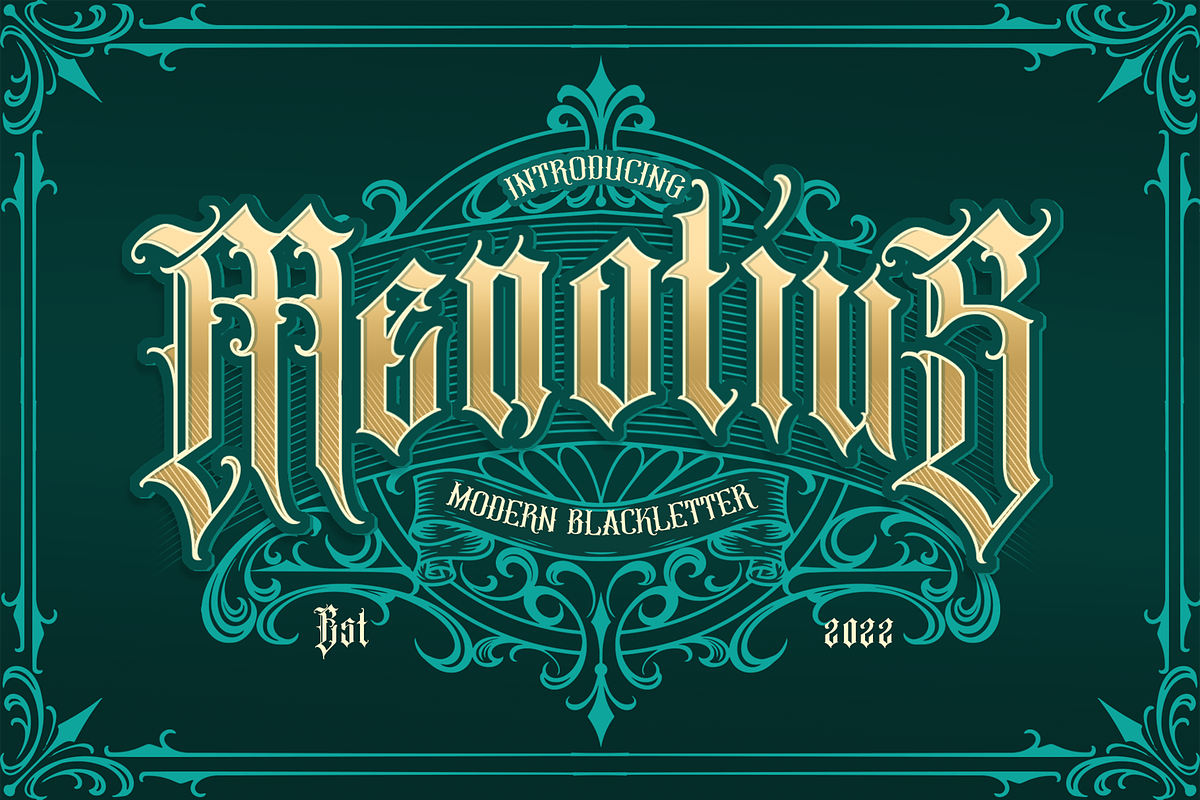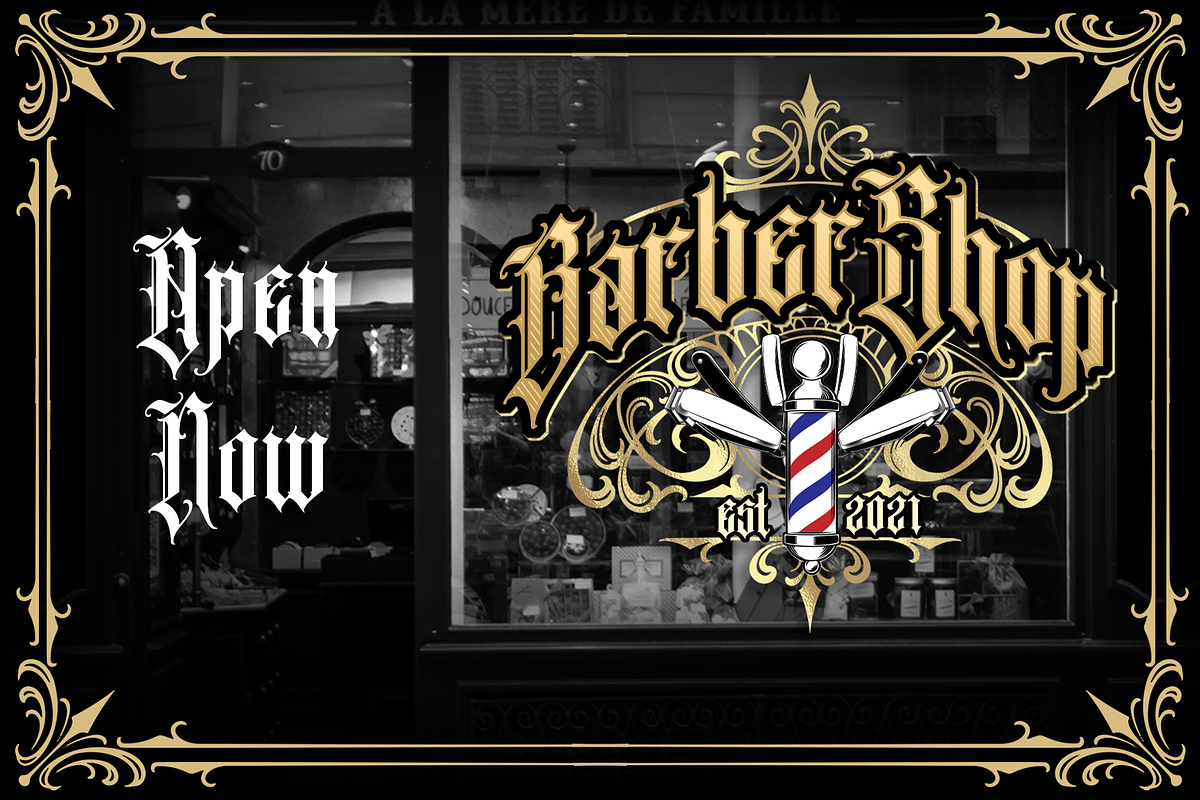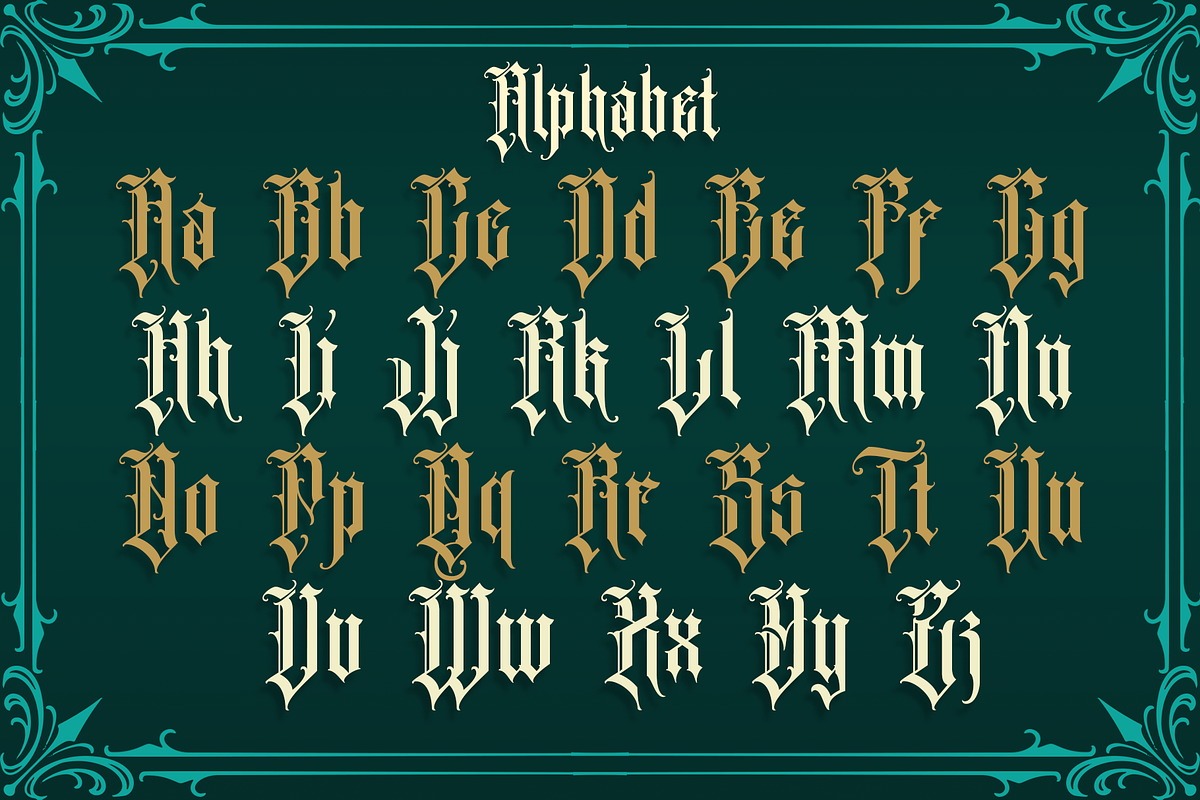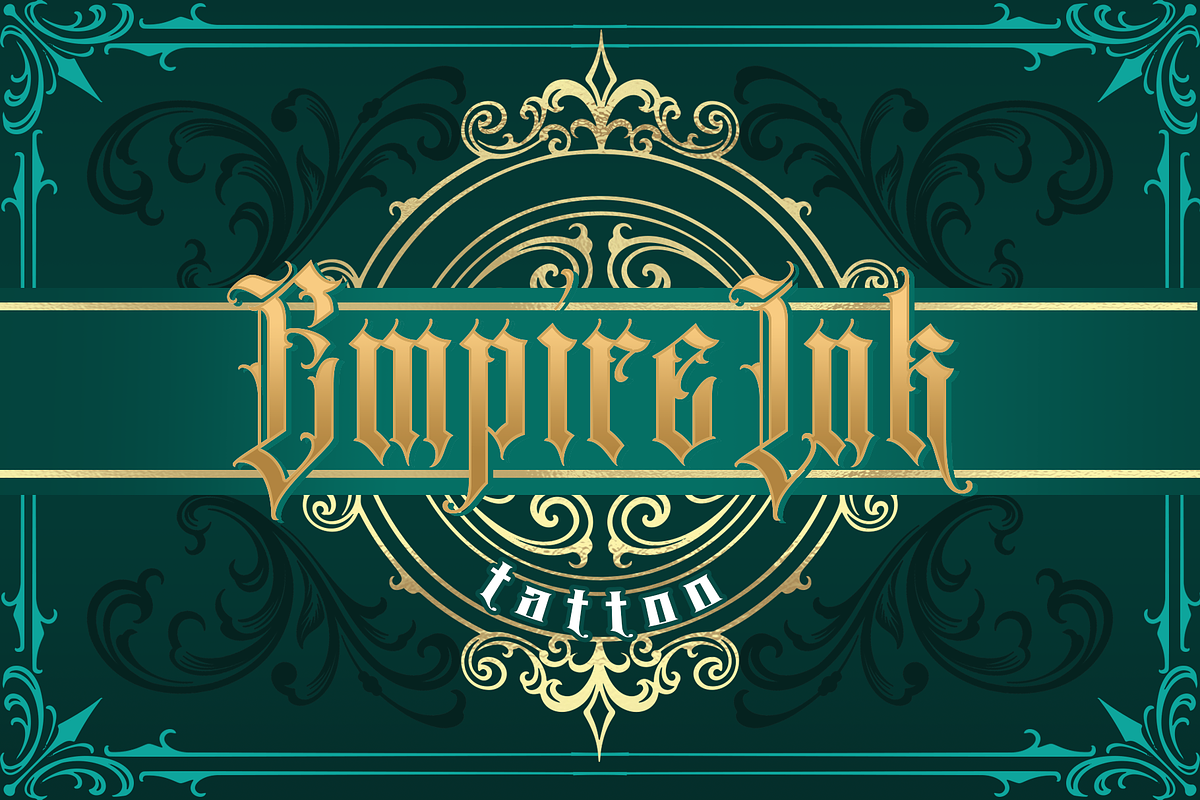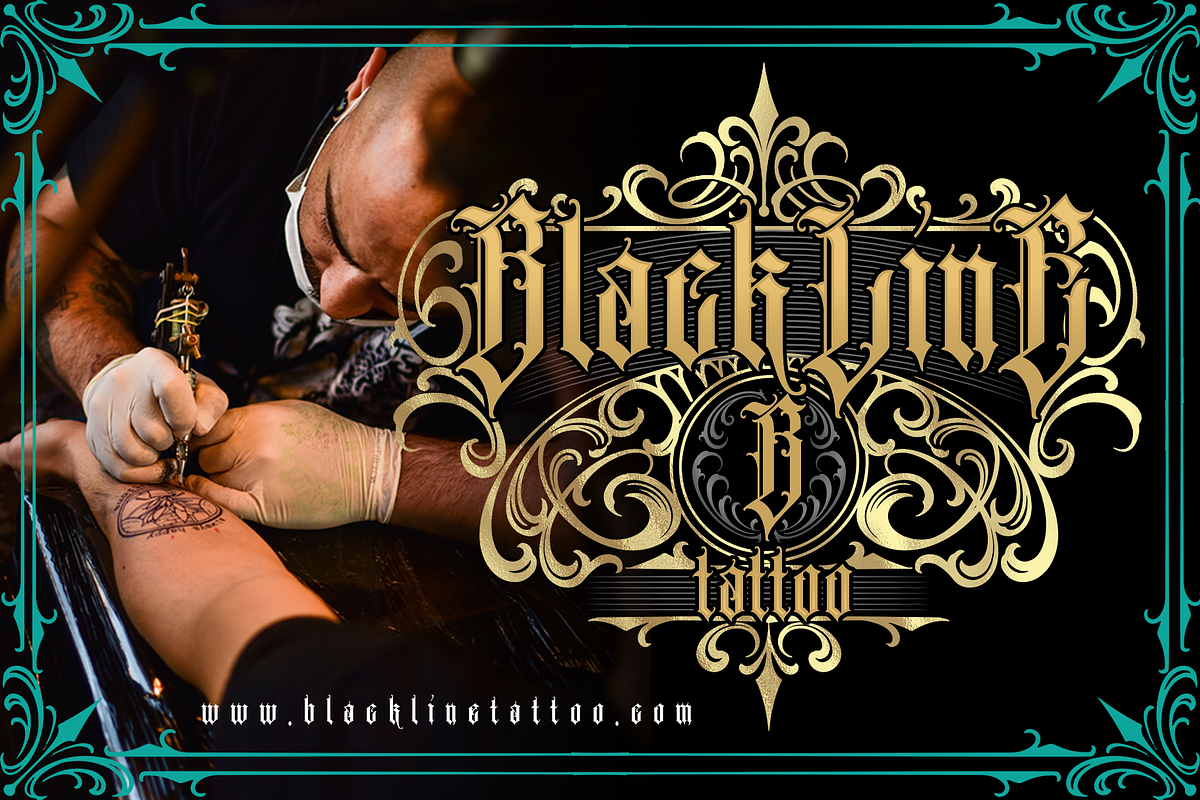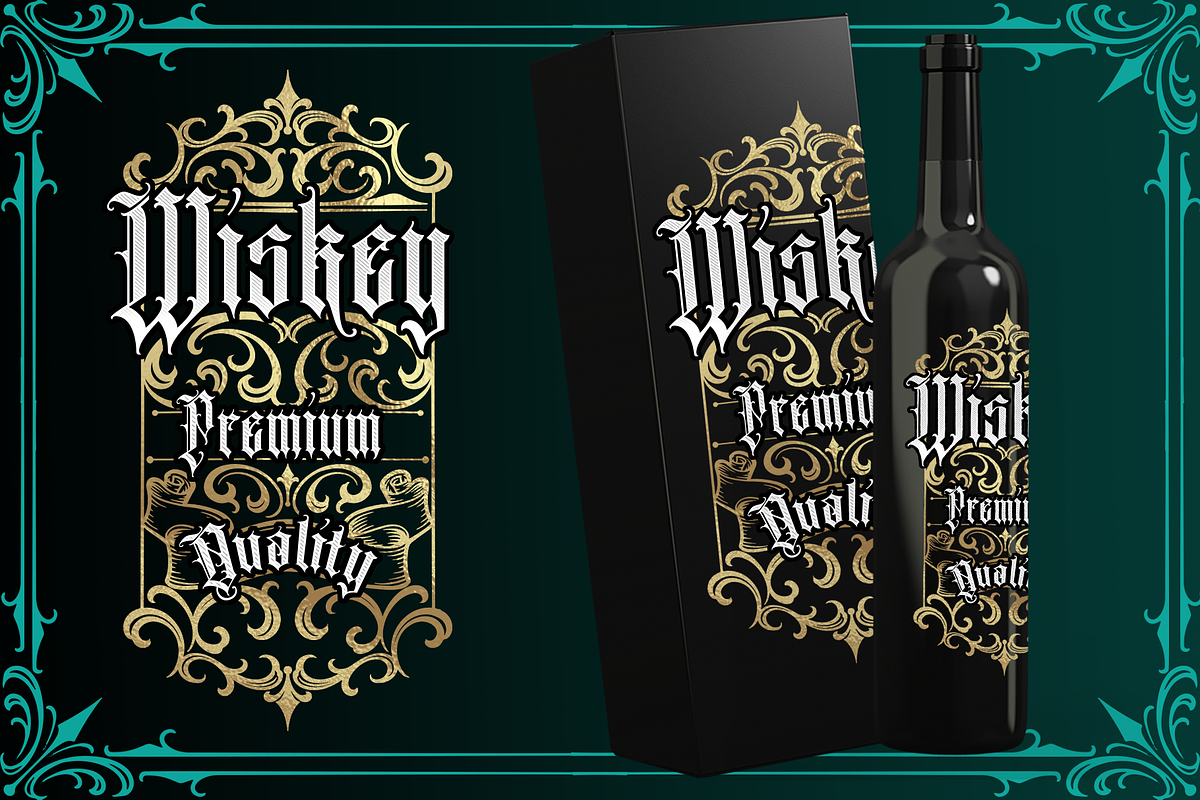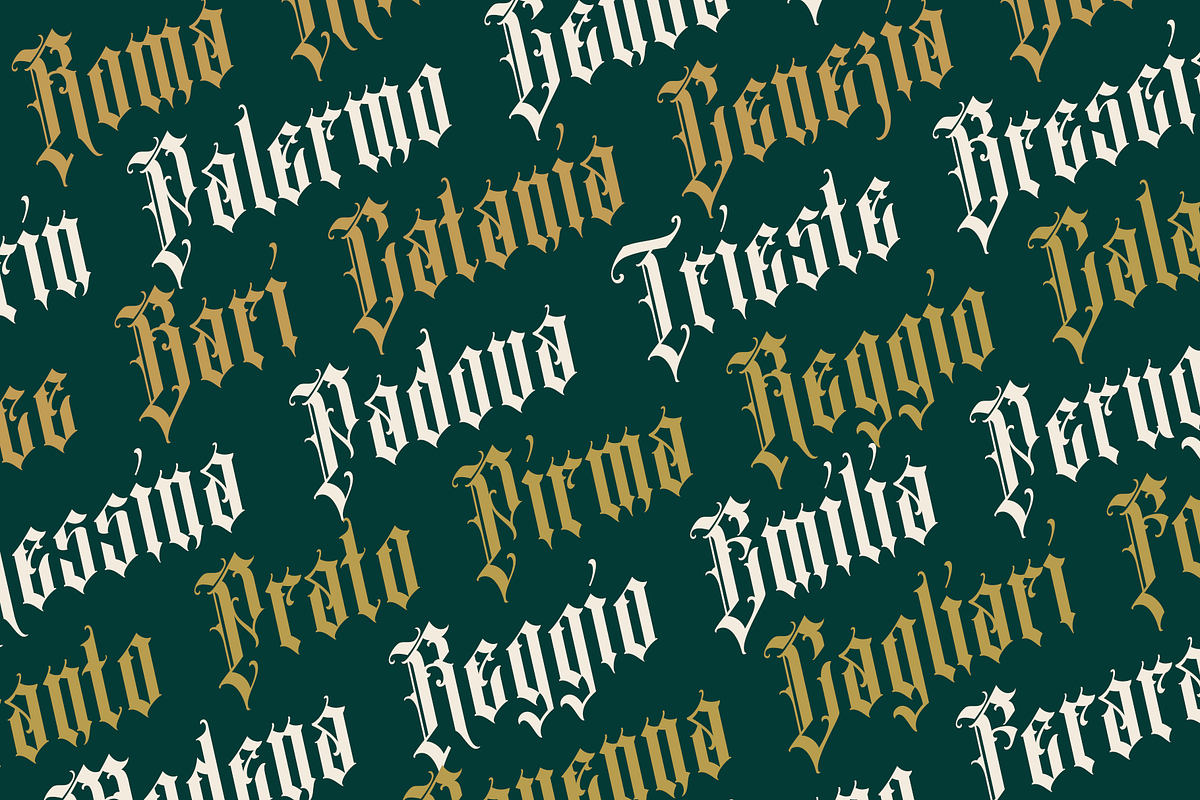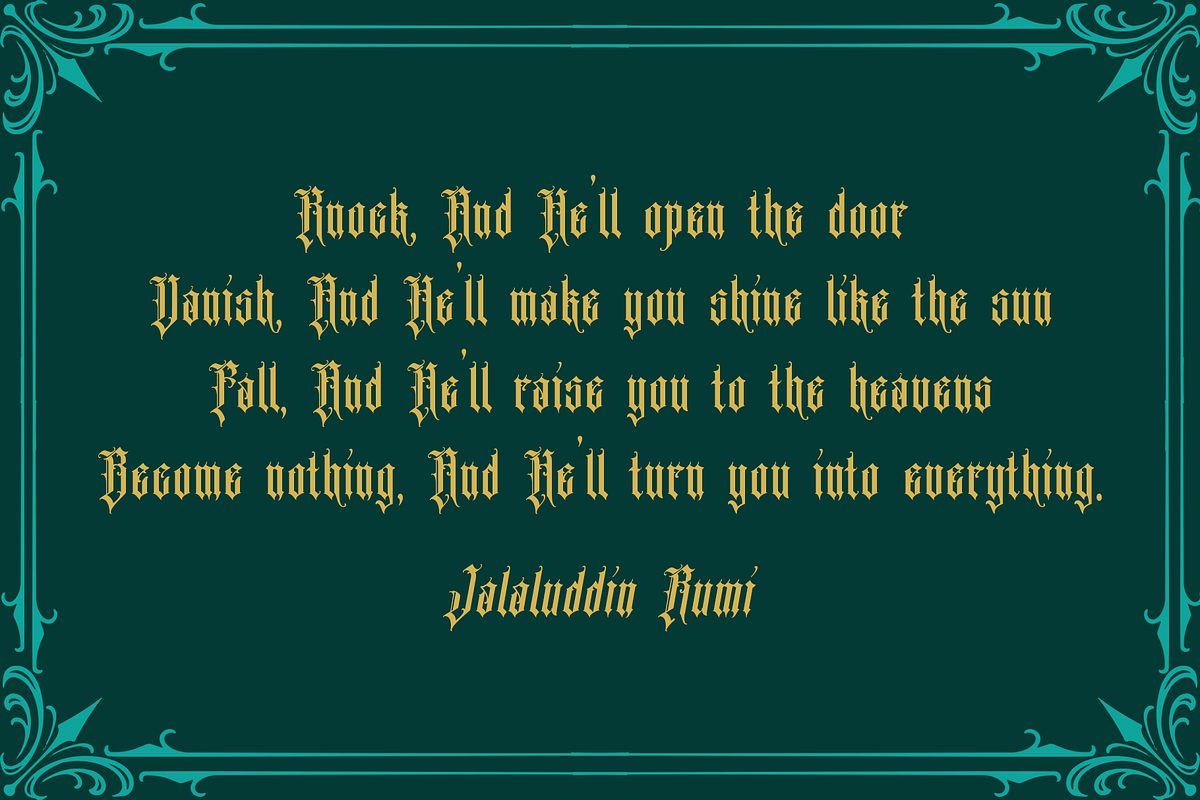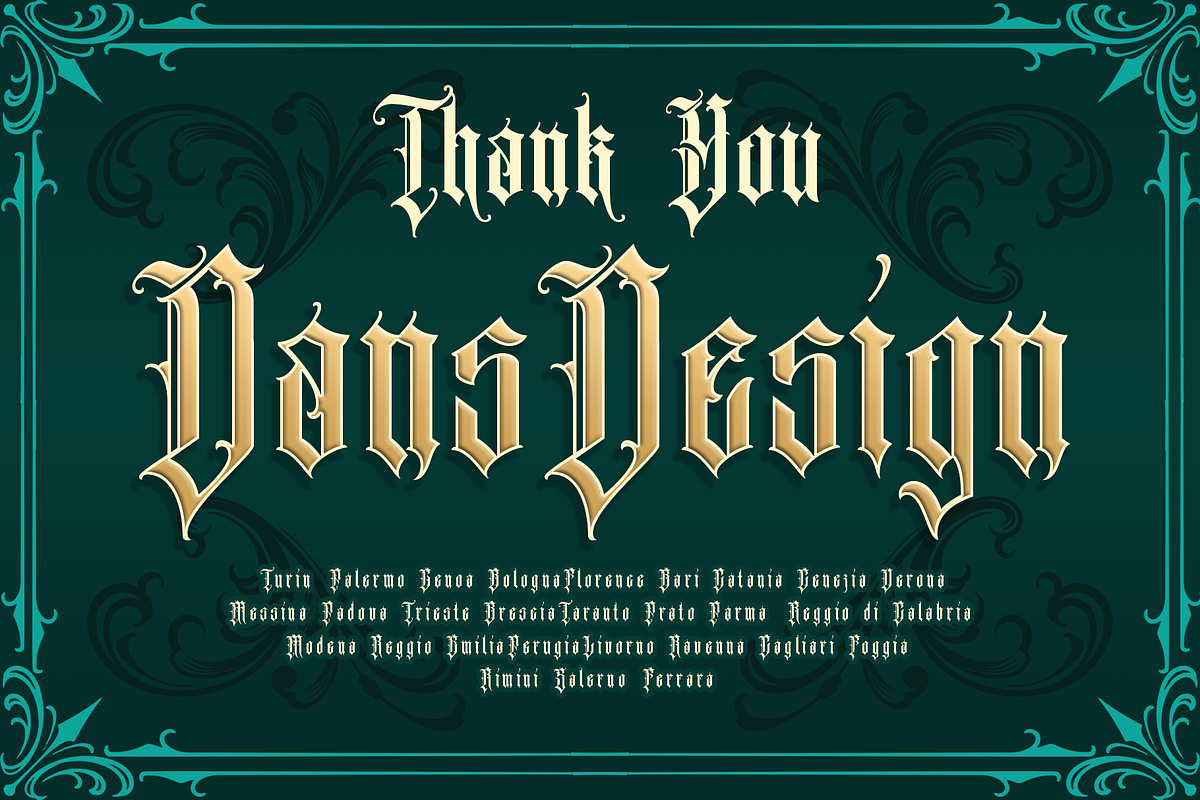
Menotius Modern Blackletters
Dansdesign Proudly present Menotius victorian blackletter font, This font is made with references to various letters that I combine and design with my style.
Menotius are great and usefull for product logo, poster title, headline, packaging, badge, packaging logo , clothing brand logo, Vintage design and much more